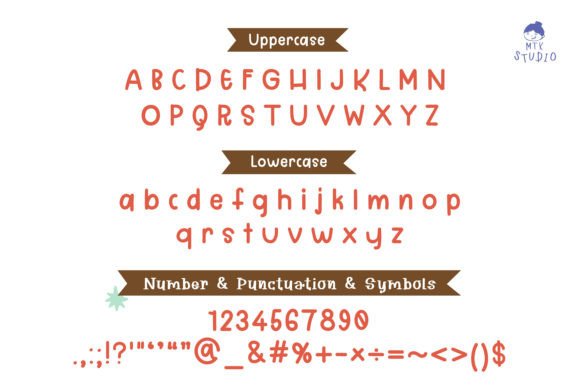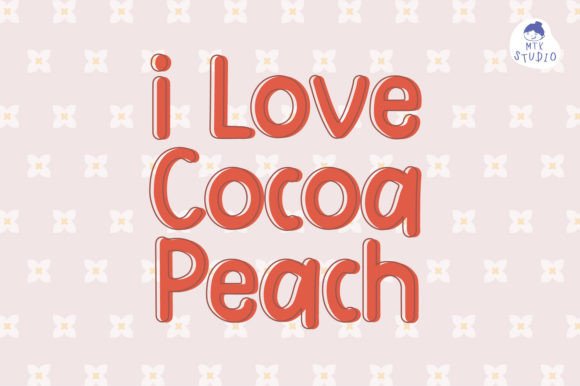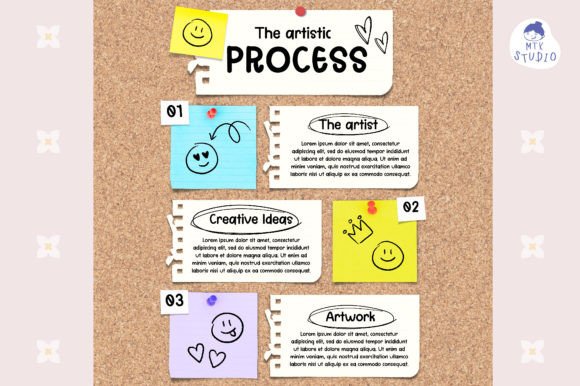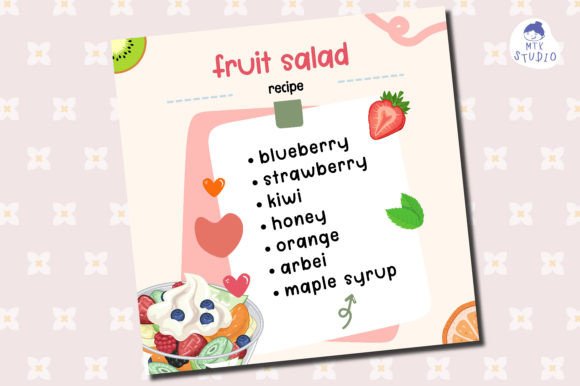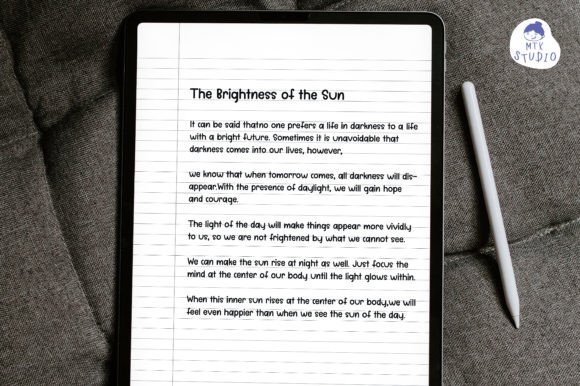
Introduction to Cocoapeach Font
CocoaPeach is a fun and cute handwritten font.
Add it to your creative projects and enjoy the results .
Key Features of Cocoapeach Font
Why Choose Cocoapeach Font?